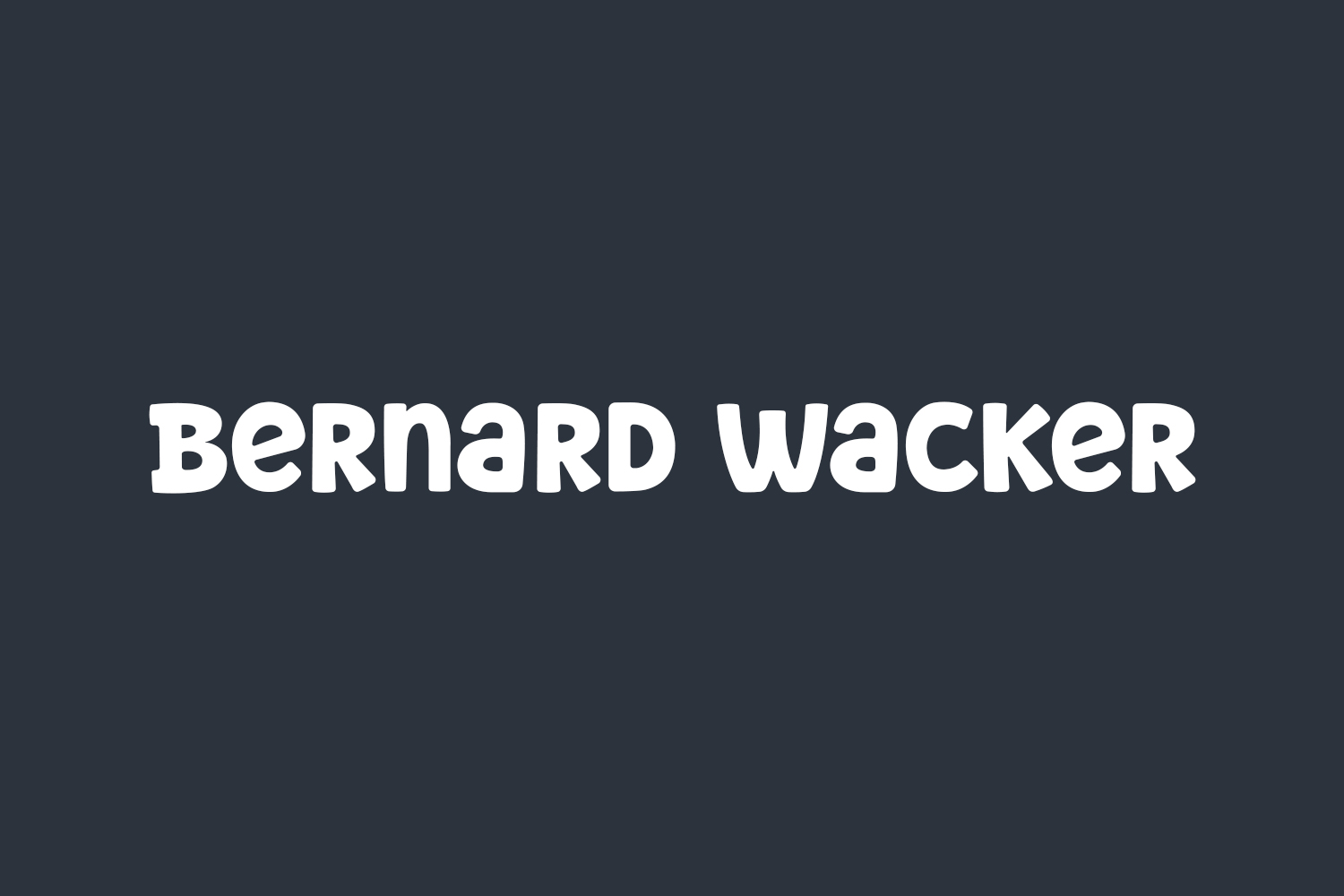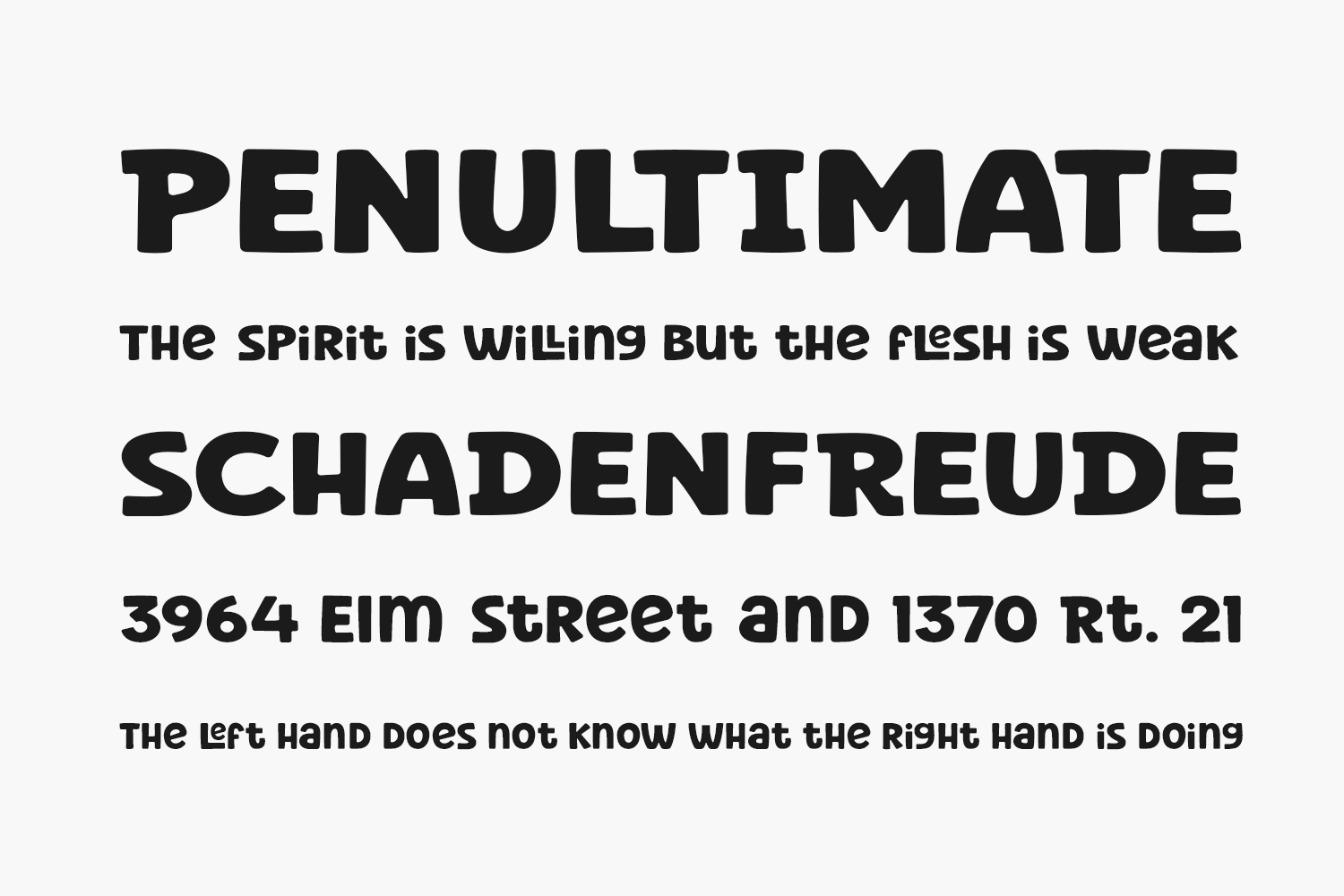
Meet Bernard Wacker Free Font, a sleek and timeless slab serif font that exudes a distinctive and sophisticated charm. This font is ideal for creating elegant and luxurious logos, designing book or movie titles, establishing a strong presence. Bernard Wacker Free Font is free for personal use only. Please purchase the full version for commercial use.